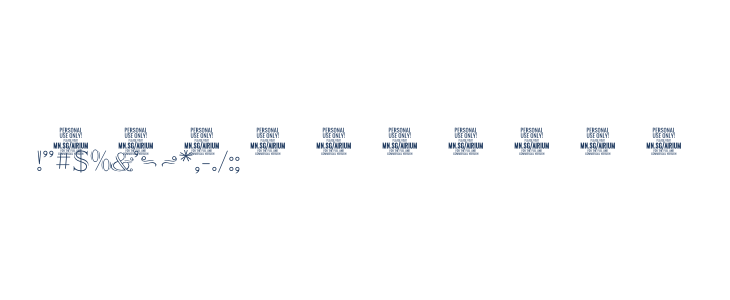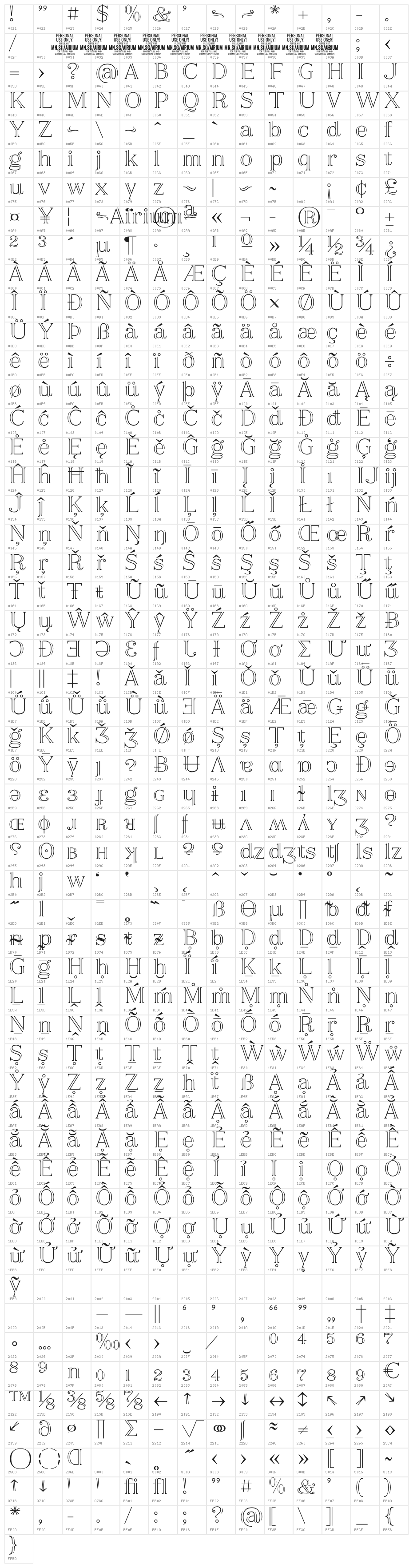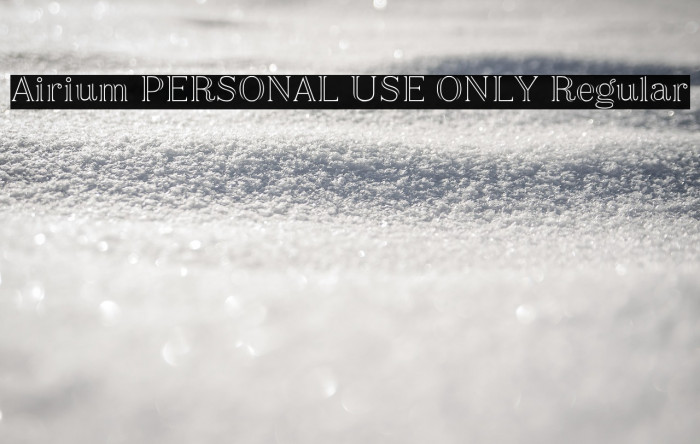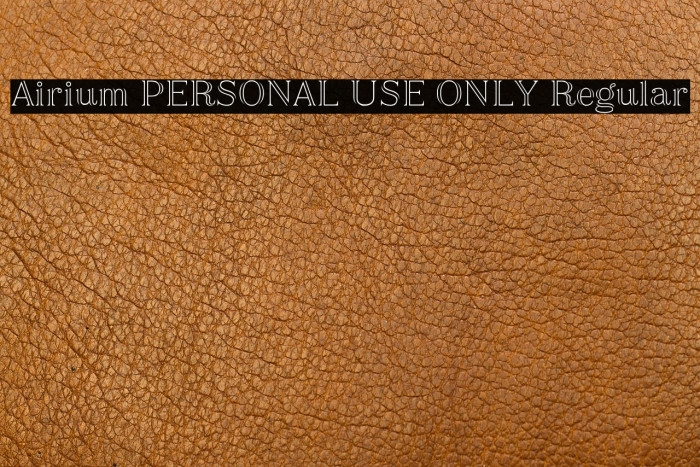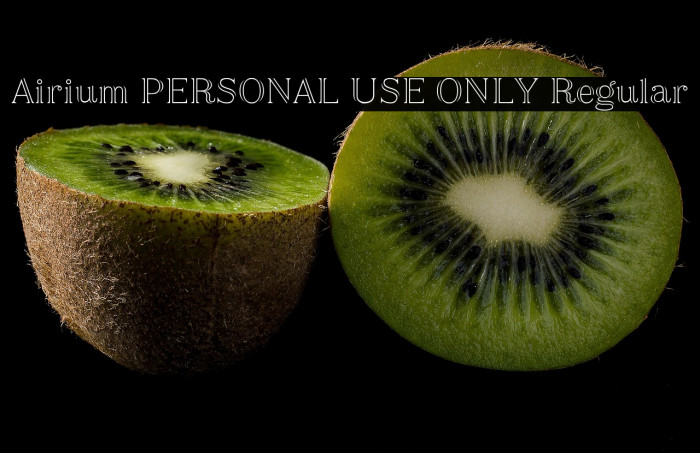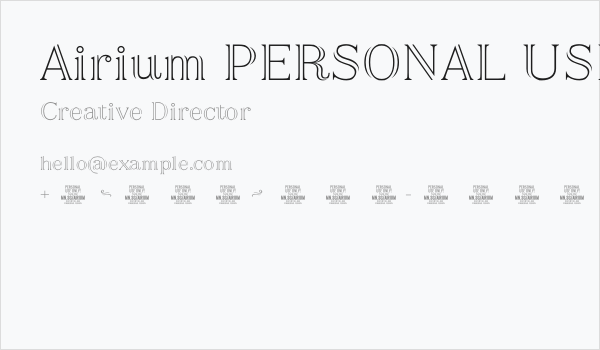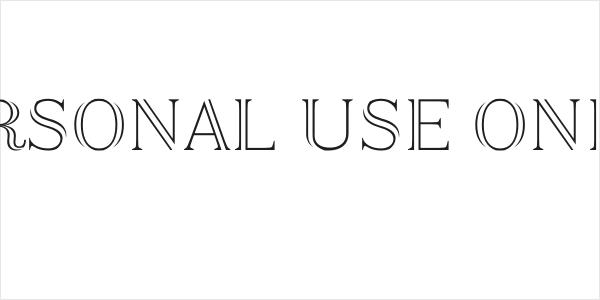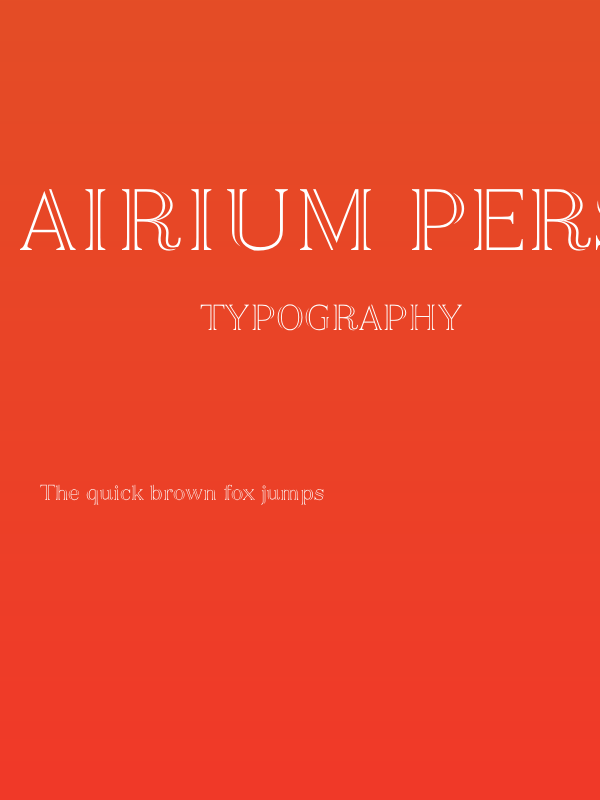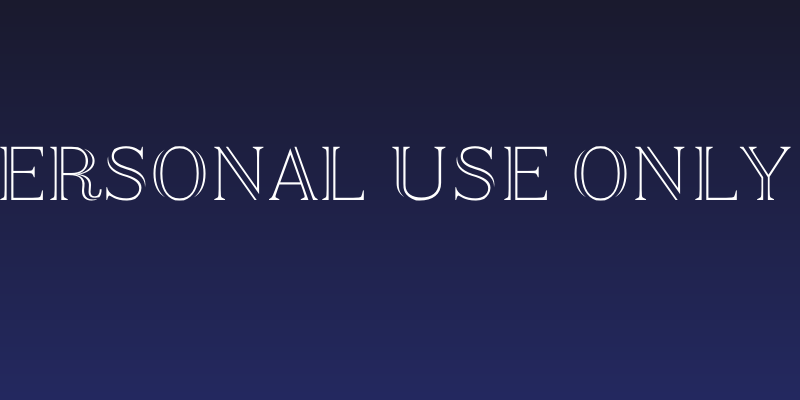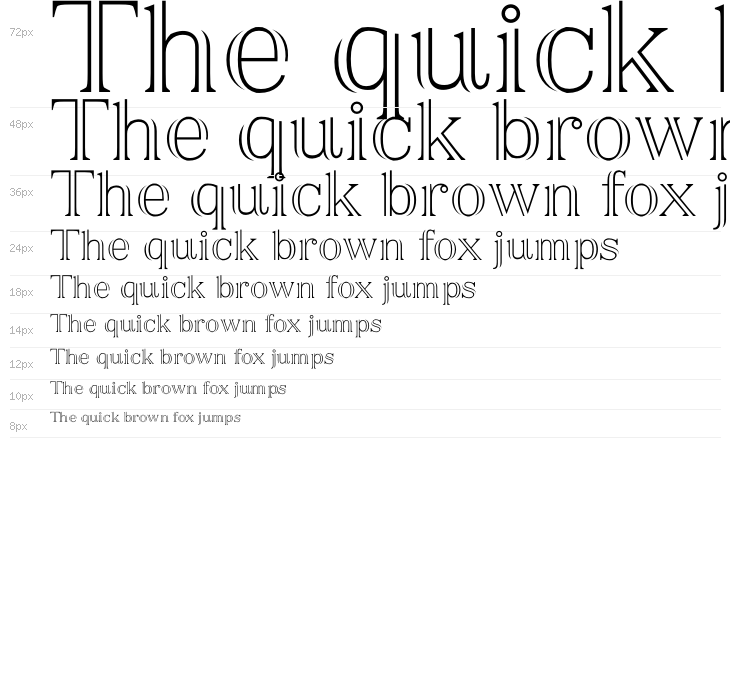
Airium PERSONAL USE ONLY Regular Font
Airium PERSONAL USE ONLY Regular Description
This font features a unique blend of modern and classic elements, characterized by its elegant and refined letterforms. The uppercase letters exhibit a sophisticated design with subtle serifs and a slight curvature that adds a touch of elegance. The lowercase letters maintain a consistent style, with some characters featuring distinctive loops and flourishes that enhance their visual appeal. The numerals are clear and balanced, ensuring readability. The special characters are thoughtfully designed, incorporating the same elegant style as the alphabet, making them suitable for a variety of design applications.